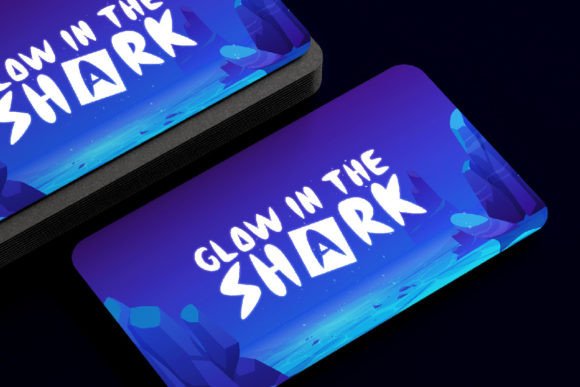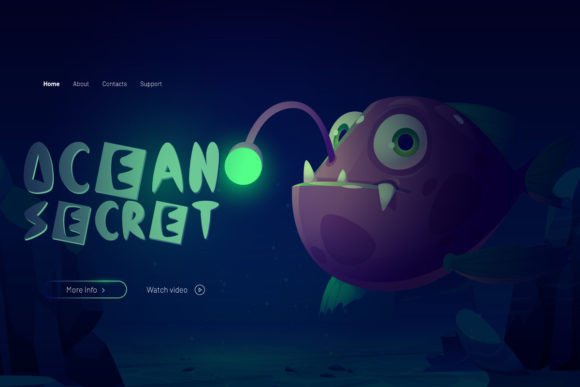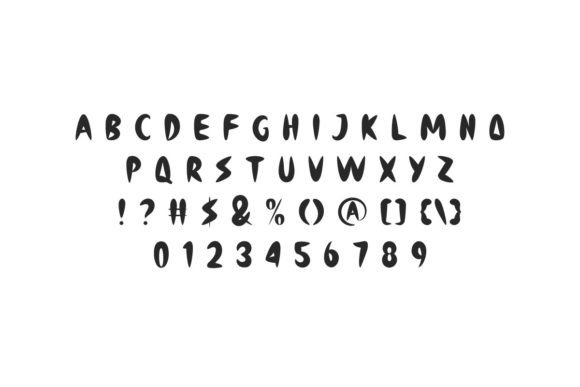
Introduction to Roughshark Font
Remember that moment when you were brainstorming ideas for your next creative project and you stumbled upon the perfect font? The one that instantly elevates your design and gives it that extra oomph? For designers, that moment is a treasure. And we’re excited to introduce you to the Roughshark Font, a game-changing display font that’s about to become your new go-to companion.
With its sharp edges and comic style, the Roughshark Font is a design resource like no other. Its unique features make it a standout in the world of typography, and its high-quality design ensures that it will remain a valuable addition to your design arsenal for a long time to come. Plus, with a transparent background, you can easily integrate it into any project, from animations to publishing.
Key Features of Roughshark Font
- Roughshark Font is a high-quality design resource ideal for creative projects, offering a unique and edgy style.
- This font features a transparent background, making it easy to use and customize for various design needs.
- One of the unique characteristics of Roughshark Font is its bold and distressed texture, adding a touch of ruggedness to any design.
- The font family consists of multiple styles, including regular, bold, and italic, offering designers a range of options to choose from.
Honest Review: Roughshark Font
I recently stumbled upon the Roughshark Font and I must say, it’s a high quality design resource that has already found its way into my creative project workflow. The font’s unique blend of rough textures and clean lines makes it perfect for a wide range of applications, from posters to digital displays.
- High quality design with a unique texture
What doesn’t work well:
- Only available in a limited number of font styles
- Not suitable for fine typography
Overall, I’m impressed with the Roughshark Font and I’m excited to continue using it in my design projects. It’s a great resource for designers looking for a unique and high-quality font to add some visual interest to their work.
Roughshark Font
Introduction to Roughshark Font
Roughshark Font is a unique and versatile design resource perfect for creative projects. With its high-quality typography, it’s ideal for a wide range of applications. One of the standout features of Roughshark Font is its transparent background, making it easy to overlay on any image or design.
Tips for Getting the Most Out of Roughshark Font
To get the most out of Roughshark Font, experiment with different font sizes, colors, and effects. You can also combine it with other design elements to create a unique and eye-catching design.
Common Use Cases for Roughshark Font
Roughshark Font is ideal for a wide range of applications, including logo design, branding, and creative projects. Its high-quality typography and transparent background make it a versatile design resource.